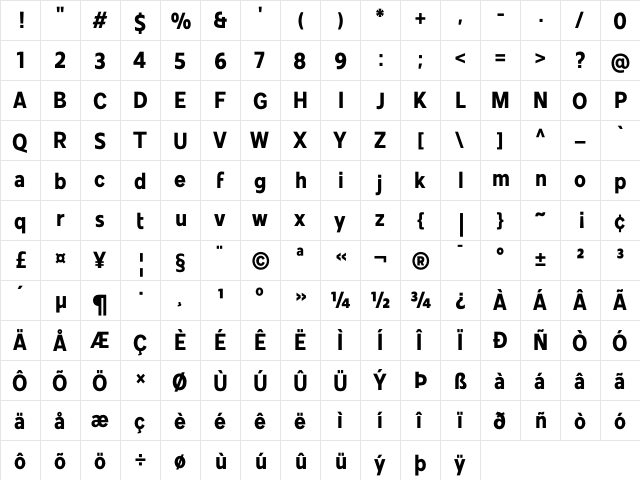
Mollen Personal Use Narrow Bold Font Preview
Design Context for Mollen Personal Use Narrow Typeface
Mollen Personal Use Narrow takes a measured approach to typography — its balanced proportions and neutral character make it a reliable workhorse for both digital and print work. Its bold stroke weight gives it real presence on the page. The condensed width makes it efficient for tight spaces without sacrificing legibility.